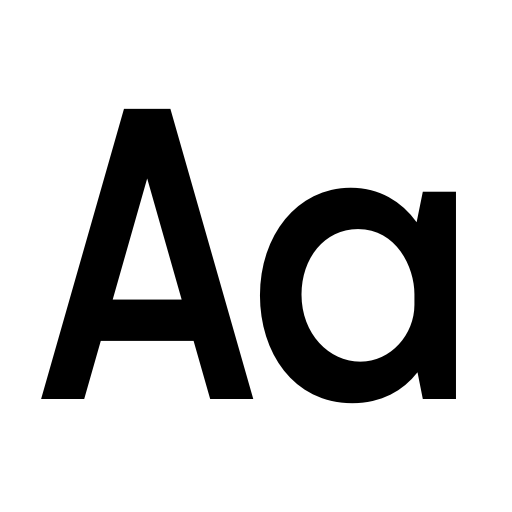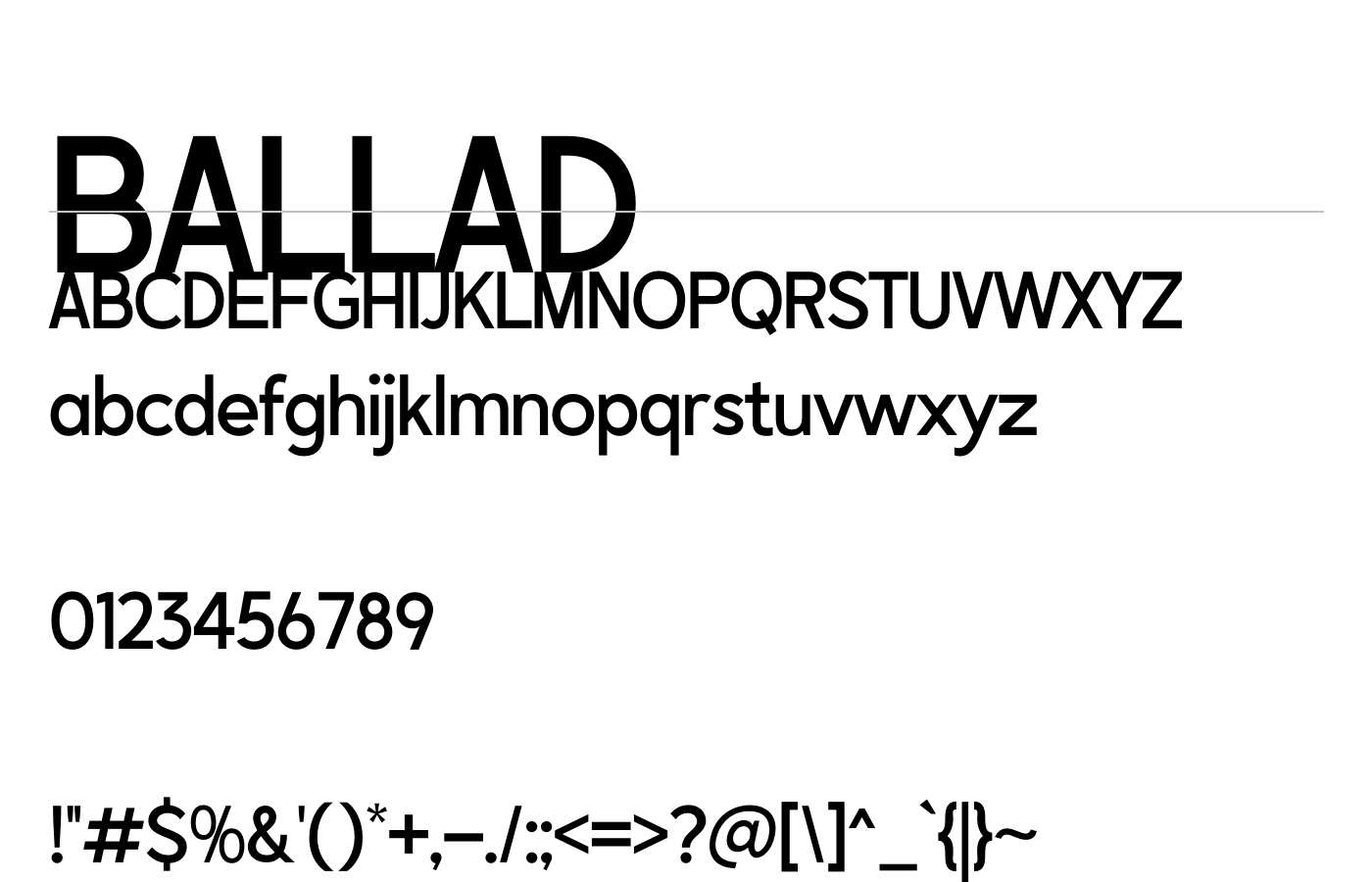
BALLAD is a clean and modern sans serif font featuring a balanced, regular weight and a slightly condensed width that creates a sleek, professional appearance. Its high x-height and well-defined, geometric letterforms deliver excellent readability and a contemporary, approachable feel, making it ideal for use in branding, editorial layouts, and digital interfaces. This versatile font suits both headlines and body text, offering a clear, confident style that works well in business, technology, and creative design contexts.
BALLAD Font
About BALLAD Font